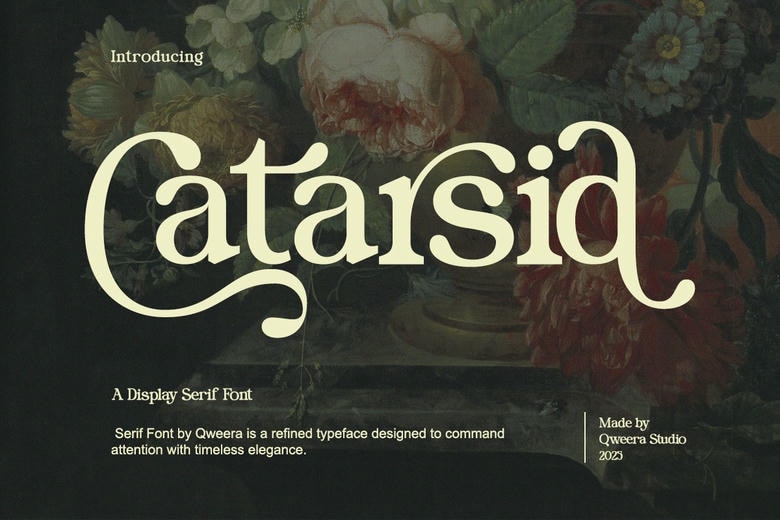
Catarsid Font
Catarsid is a retro style display serif typeface inspired by the vintage beauty and designed to apply to the present-day creators. It is perfect with bold serifs and flowing grace, and it is used in logos, packaging, posters, and editorial design. It adds a nostalgic and artistry touch to each project and is a necessity to all designers who appreciate classic beauty.
Catarsid Serif Font